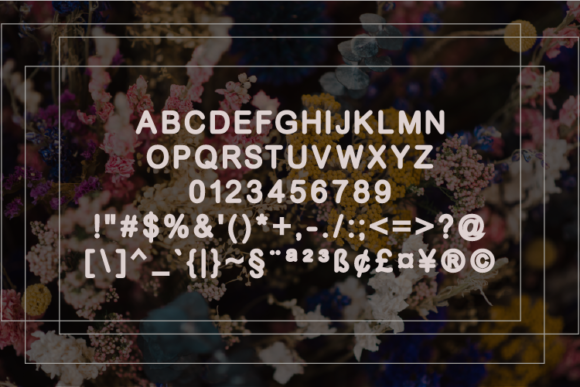
The Eloise Font: A Modern Sans Serif Marvel
I’ll never forget the design project that led me to discover the Eloise font. I was working on a branding project for a trendy boutique hotel, and I was determined to create a logo that exuded both elegance and modernity. As I scoured the internet for the perfect font, I stumbled upon Eloise – a stunning sans serif font that seemed to tick all my boxes. In this article, I’ll share my experience with Eloise, its features, and how to make the most of it in your designs.
My Honest Review of Eloise
After spending hours playing with Eloise, here’s what I love about it:
- ✨ Timeless elegance: Eloise has a sophisticated, high-end feel that’s perfect for luxury brands and designs.
- ✅ Authentic calligraphy: The font’s subtle calligraphic touches add a touch of warmth and humanity to your designs.
- 💡 Versatility: Eloise works beautifully in a variety of contexts, from headings and titles to body text.
Of course, no font is perfect, and Eloise has a few quirks:
- 🤔 Limited contrast: While Eloise has a range of weights, some users may find the contrast between them a bit limited.
- ⚠️ Glyph limitations: As with any font, there may be limitations to the number of glyphs and special characters available.
- Experiment with Eloise’s OpenType features, such as stylistic alternates and ligatures, to add visual interest to your text.
The Story Behind Eloise
Eloise was designed with the goal of creating a modern sans serif font that still felt elegant and refined. The designer aimed to combine the clean lines of a sans serif font with the warmth and character of calligraphy. The result is a font that’s both timeless and contemporary.
| Font Name | Eloise Font |
| Author | Nan Design |
| What makes Eloise unique? | Eloise’s unique blend of modern sans serif lines and authentic calligraphy. |
| Is Eloise suitable for body text? | Yes, Eloise works well for body text, especially in larger sizes. |
Overall, Eloise is a stunning font that can elevate your designs and add a touch of sophistication. With its modern sans serif lines, elegant calligraphy, and versatility, Eloise is sure to become a favorite in your font library.